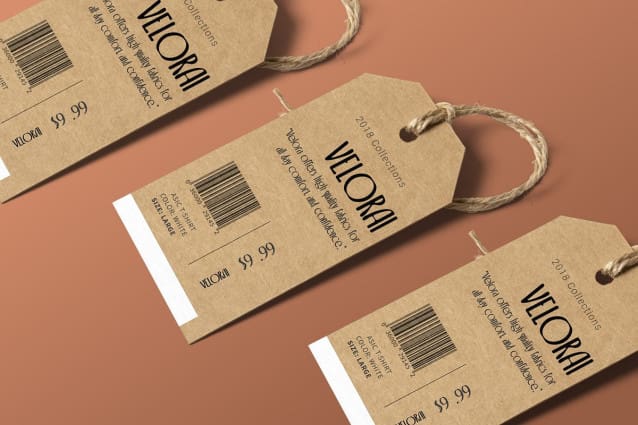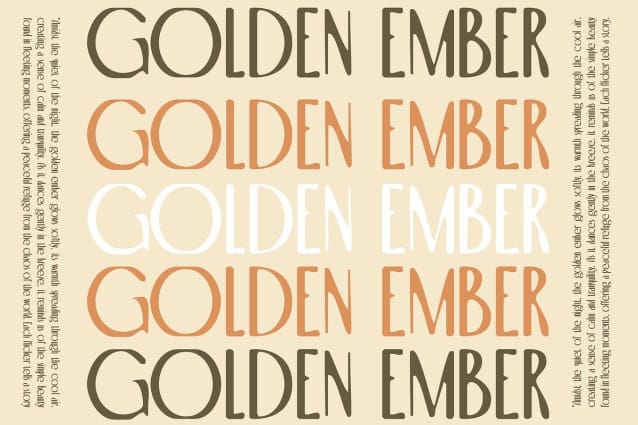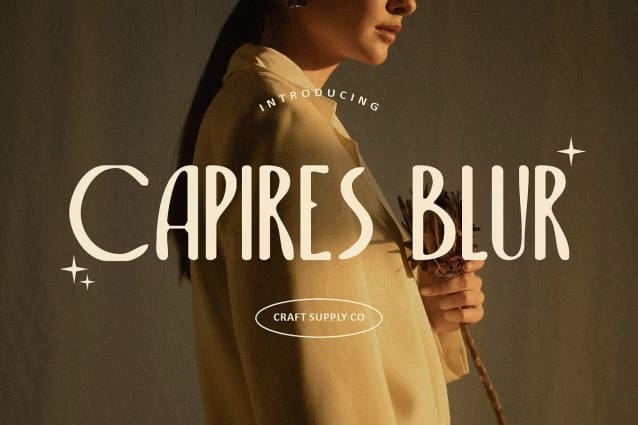
Capires Blur Font
Capires Blur Font is a modern sans serif font that artfully merges the structured elegance of Art Deco with a soft, understated blur effect. This combination creates a sophisticated yet forward-thinking look that’s both timeless and contemporary, making it an ideal choice for designers seeking a refined aesthetic with a twist of modern flair. Its sleek shapes and innovative blur give Capires Blur a dynamic quality that sets it apart, offering a bold statement for any design project.
Distinctive Blur Effect for Added Visual Appeal The gentle blur effect in Capires Blur enhances its geometric structure, offering a captivating, futuristic look that stands out. This subtle blur gives the font a soft, atmospheric quality, ideal for creative projects that seek to push boundaries. Whether for digital media, branding, or creative layouts, Capires Blur adds a layer of intrigue and modern appeal.
Ideal for Luxury and Forward-Thinking Designs With its blend of Art Deco geometry and modern blur, Capires Blur is perfect for forward-thinking brands, elegant presentations, and projects aiming to convey exclusivity and innovation. Its refined, captivating style makes it suitable for fashion, tech, and luxury designs that demand attention and sophistication.